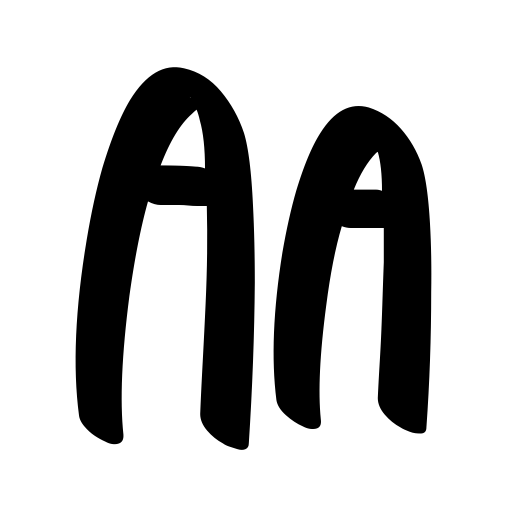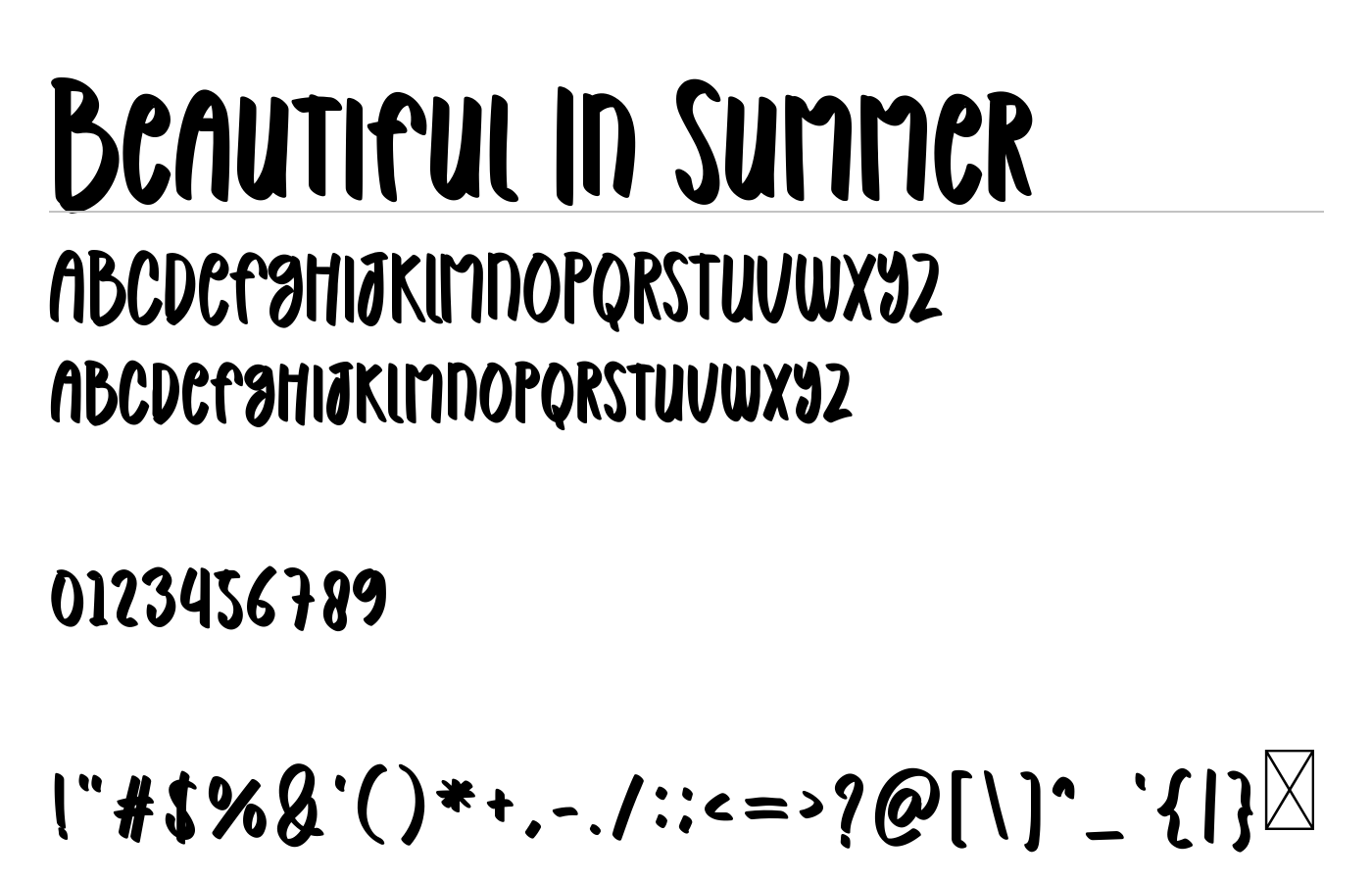
Beautiful In Summer is a playful and joyful handwritten sans serif font with a casual, organic feel. Its rounded, slightly uneven letterforms and medium weight give it a warm and approachable personality, perfect for creative, friendly, and informal designs. This font works well for branding, posters, and social media where a fun and lively touch is desired.
Beautiful In Summer Font
About Beautiful In Summer Font